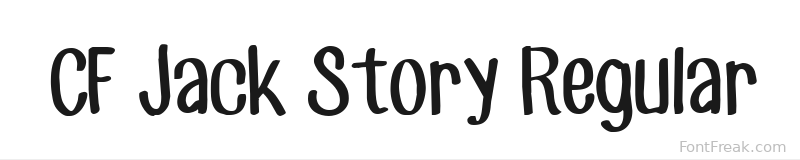
CF Jack Story Regular
CF Jack Story Regular by Cloutierfontes is a playful display font that perfectly blends whimsy with readability. This handwritten-style typeface features an organic, casual charm, showcasing rounded letters with a slightly uneven baseline that adds to its character. The stroke weight is consistent but varies subtly in certain letters, creating a lively feel. The spacing is well-balanced, ensuring clarity while maintaining a friendly and approachable appearance. Its decorative elements are minimal yet effective, making it suitable for various creative projects without overwhelming the overall design.
This font is ideal for a range of applications, including wedding invitations that call for a touch of elegance and personalization, children's book covers that benefit from its fun and engaging style, restaurant menus that aim to create a warm and inviting atmosphere, and social media graphics that strive to capture attention with a unique flair. Additionally, it works wonderfully for branding purposes, particularly for businesses targeting families or creative industries.
The target audience for CF Jack Story Regular includes graphic designers seeking to infuse their projects with a sense of warmth and personality, small business owners looking to establish a friendly brand identity, and content creators aiming for an eye-catching typeface that resonates with their audience.
What sets CF Jack Story Regular apart is its versatility and charm. It strikes the perfect balance between playful and professional, making it suitable for both casual and formal design contexts. Whether you’re creating a heartfelt invitation or an engaging promotional piece, CF Jack Story Regular font free download offers a unique option that stands out in any design landscape, ensuring your message is delivered with style and character.